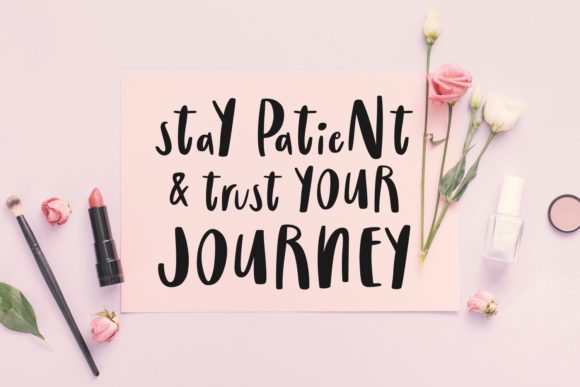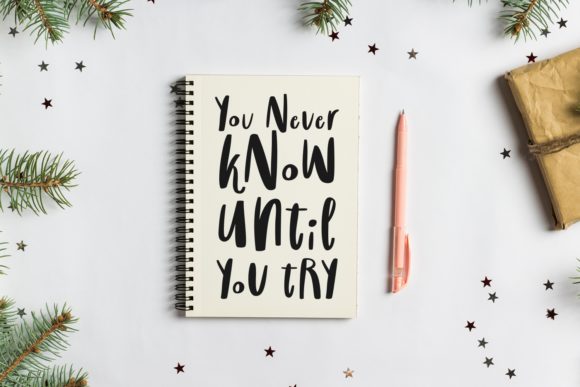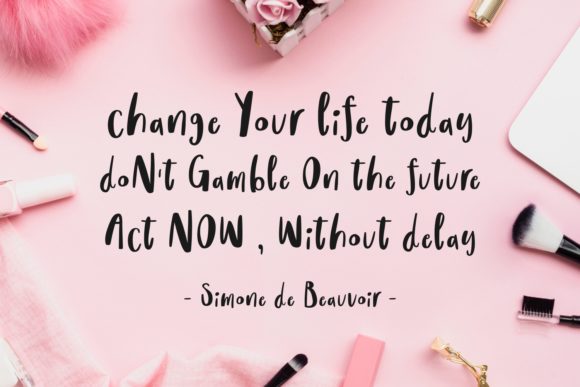
Fidato Font: The Ultimate Choice for Adding a Playful Vibe to Your Crafts
In the world of crafting, typography plays a vital role in conveying the tone and personality of a project. When it comes to adding a touch of playfulness and uniqueness to your crafts, the right font can make all the difference. This is where Fidato Font comes into play – a cool and bold script font that is sure to elevate your creations to the next level.
What Makes Fidato Font So Special?
Fidato Font is not just another ordinary font; it’s a carefully crafted script font designed to add a dash of personality to your projects. Its unique style is what sets it apart from other fonts, making it a standout choice for crafters, designers, and DIY enthusiasts. Whether you’re working on a handmade card, a scrapbooking project, or a custom sign, Fidato Font is sure to bring a smile to the face of anyone who sees it.
Key Features of Fidato Font
- Unique Style: Fidato Font boasts a one-of-a-kind design that will instantly grab attention. Its bold and playful appearance makes it perfect for projects that require a bit of whimsy.
- Bold and Cool: The font’s boldness ensures that your text stands out, while its cool factor adds a modern touch to your crafts.
- Script Font: As a script font, Fidato adds a touch of elegance and sophistication, making it suitable for a wide range of projects, from formal to informal.
- Playful Vibe: The font’s playful nature makes it an excellent choice for projects aimed at a younger audience or for adding a fun element to any craft.
Uses of Fidato Font
Fidato Font’s versatility is one of its strongest assets. Here are some of the many ways you can use this fantastic font:
- Handmade Cards: Add a personal touch to your greeting cards with Fidato Font, making them truly special for any occasion.
- Scrapbooking: Use Fidato Font to title your scrapbooking pages or to add fun captions to your photos.
- Custom Signs: Whether it’s for a party, a business, or a personal project, Fidato Font can help your sign stand out.
- DIY Projects: From knitting patterns to woodworking projects, Fidato Font can add a unique touch to your DIY endeavors.
Tips for Using Fidato Font Effectively
To get the most out of Fidato Font, consider the following tips:
- Pair with Complementary Fonts: Combine Fidato Font with simpler fonts to create visual interest and hierarchy in your text.
- Experiment with Colors: Don’t be afraid to play around with different colors to find the perfect match for your project.
- Use it Sparingly: While Fidato Font is certainly eye-catching, using it sparingly can make it even more impactful.
Fidato Font is more than just a font – it’s a tool for self-expression and creativity. Its unique blend of boldness, cool factor, and playfulness makes it an excellent addition to any crafter’s or designer’s toolkit. Whether you’re looking to add a touch of whimsy to your handmade cards, a dash of personality to your DIY projects, or a professional edge to your custom signs, Fidato Font is the way to go. So, why settle for ordinary when you can make your crafts truly extraordinary with Fidato Font?